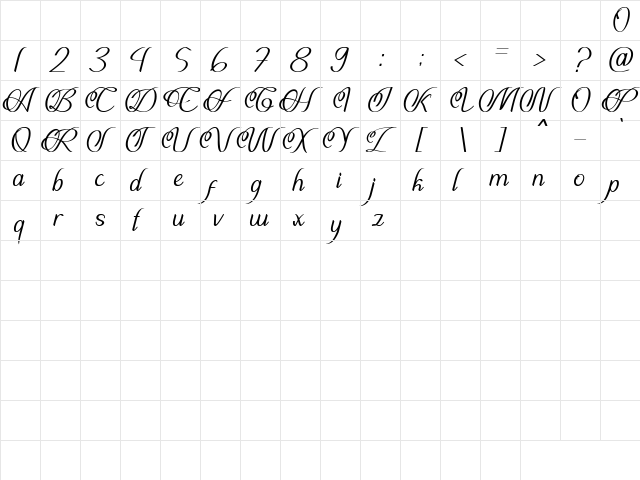
Rheinalita Personal Use Only Regular
Design Context for Rheinalita Personal Use Only Typeface
Rheinalita Personal Use Only is a composed and adaptable typeface that performs quietly and consistently across a wide range of design contexts.